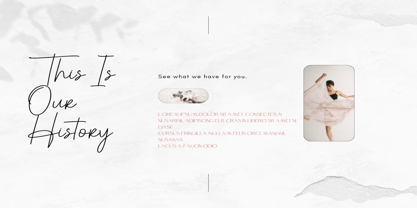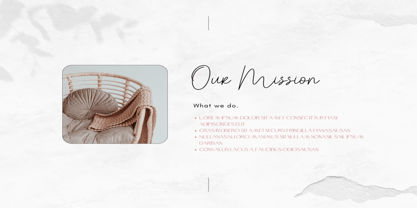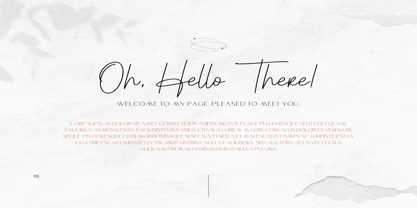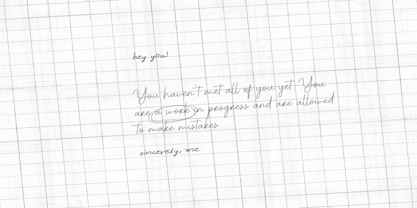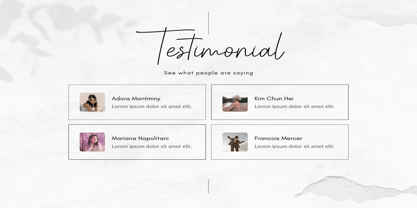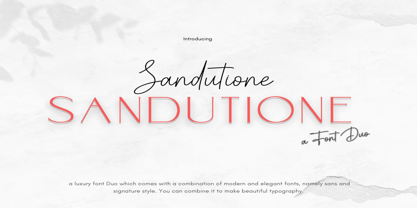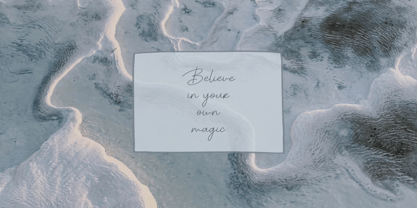
Sandutione
The Sandutione Font Family was designed by Hermann Zapf and published by Dream Font. Sandutione contains 2 styles and family package options.
Sandutione is a lovely duo font (script and sans serif). It will add a luxury spark to any design project that you wish to create! This font is PUA encoded which means you can access all of the amazing glyphs and ligatures with ease!
Designers: Hermann Zapf